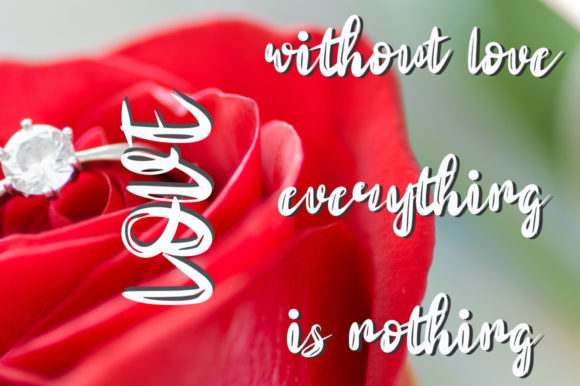
The Sweet Spot: Discovering the Cake Bake Font
I’ll never forget the time I was working on a cake design project for a client’s birthday party. I had the perfect concept in mind, but I just couldn’t find the right font to match. The design was modern, elegant, and playful, but my font choices were either too boring or too over-the-top. That’s when I stumbled upon the Cake Bake font, and it was love at first sight! ✨ In this article, I’ll share my experience with this lovely modern font, its features, and how to make the most of it in your designs.
- ✅ Modern and elegant: Cake Bake has a sleek, contemporary feel that’s perfect for designs that need a touch of sophistication.
- ✅ Highly versatile: This font can be used for a wide range of projects, from baking and cooking to fashion and beauty.
- ✅ Easy to read: The font is clear and legible, making it perfect for body text or headings.
- ✨ Beautifully crafted: The attention to detail in this font is exceptional, with beautiful curves and lines that make it a joy to use.
The Not-So-Good Stuff
- ⚠️ Limited glyphs: While Cake Bake has a good range of characters, it may not have all the special characters you need for certain projects.
- 🤔 Can be overused: Because of its versatility, it’s easy to rely too heavily on Cake Bake. Make sure to mix it up with other fonts to keep your designs fresh.
A Practical Guide: Using Cake Bake in Your Designs
The Story Behind Cake Bake
Cake Bake was designed with the modern creative in mind. Its creator wanted to craft a font that was both elegant and playful, perfect for designs that need a touch of sophistication. The font’s clean lines, beautiful curves, and attention to detail make it a versatile choice for a wide range of projects.
| Is Cake Bake suitable for body text? | Yes, Cake Bake is clear and legible, making it suitable for body text. However, it may be more effective as a headline or display font. |